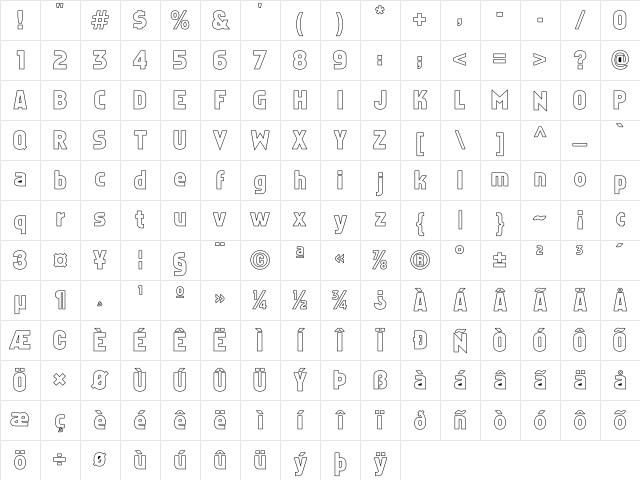
Faktos Hollow Regular Free Font
Faktos Hollow Regular
Design Context for Faktos Hollow
Faktos Hollow is a composed and adaptable typeface that performs quietly and consistently across a wide range of design contexts.